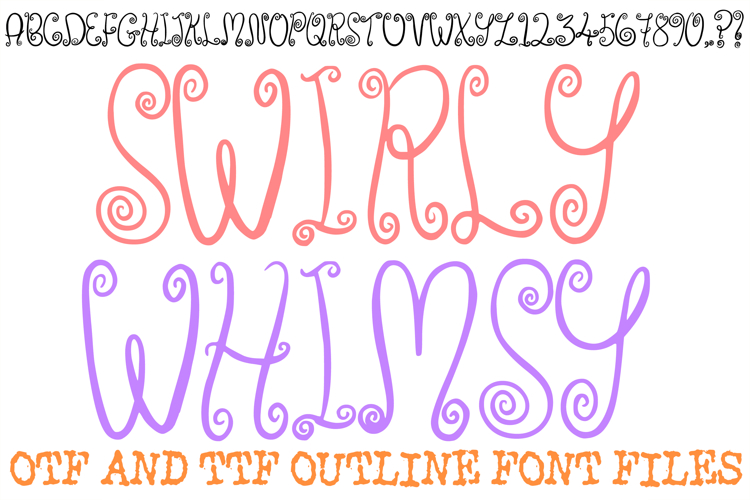
Swirly Whimsy Font Doodle Lettering Curly Type ABC OTF
Capture the essence of imagination with the Swirly Whimsy Font! This decorative, hand-drawn display typeface is defined by its elegant spiral flourishes and playful curls that adorn every character. It is the perfect selection for boutique branding, fairytale-themed nursery art, whimsical wedding invitations, and creative DIY projects that require a touch of artistic flair.
The flowing lines and intricate loops give your text a sense of graceful movement and charm. Whether you are designing a logo for a specialty shop, crafting custom stickers, or creating magical social media headers, the Swirly Whimsy Font provides a handcrafted, high-impact look that feels truly unique.
Why Your Designs Will Stand Out:
Intricate Spiral Flourishes: Each letter and number is uniquely designed with artistic curls that add instant decorative value.
Playful Hand-Drawn Character: The organic, sketchbook-style line work offers a genuine, non-digital aesthetic.
High-Visibility Display Style: The distinctive silhouettes make this font an excellent choice for headlines and focal-point text.